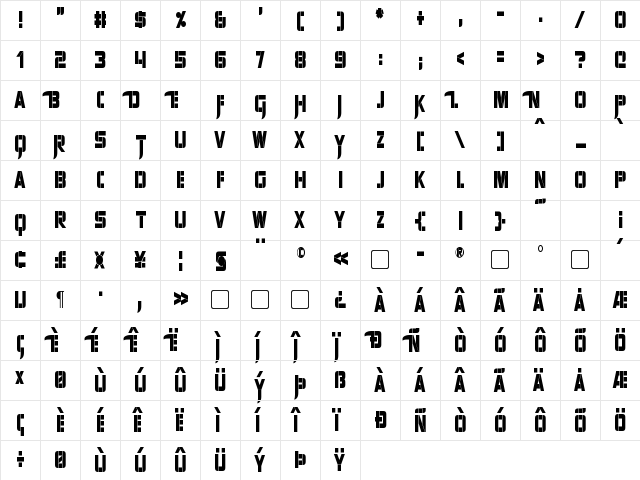
Sharp Avienne Condensed Regular
| Foundry | Neale Davidson |
| Designer | Neale Davidson |
Design Context for Sharp Avienne Condensed Typeface
Sharp Avienne Condensed is a composed and adaptable typeface that performs quietly and consistently across a wide range of design contexts. The condensed width makes it efficient for tight spaces without sacrificing legibility.